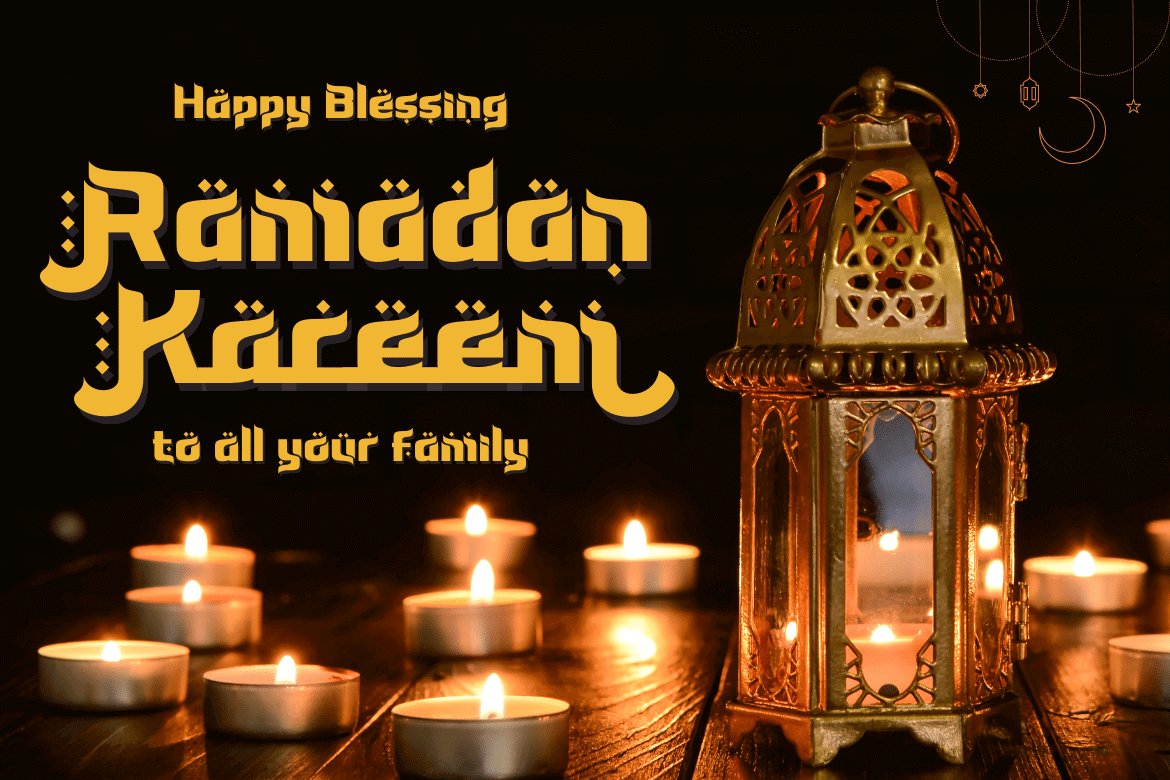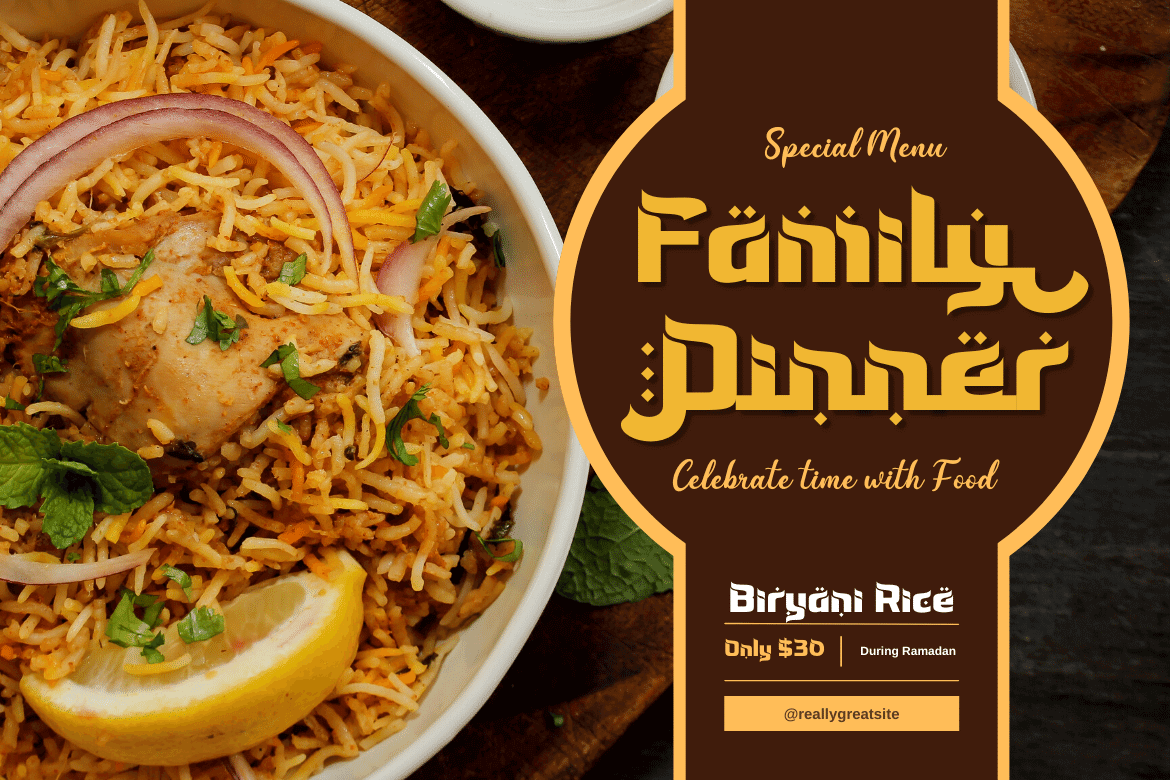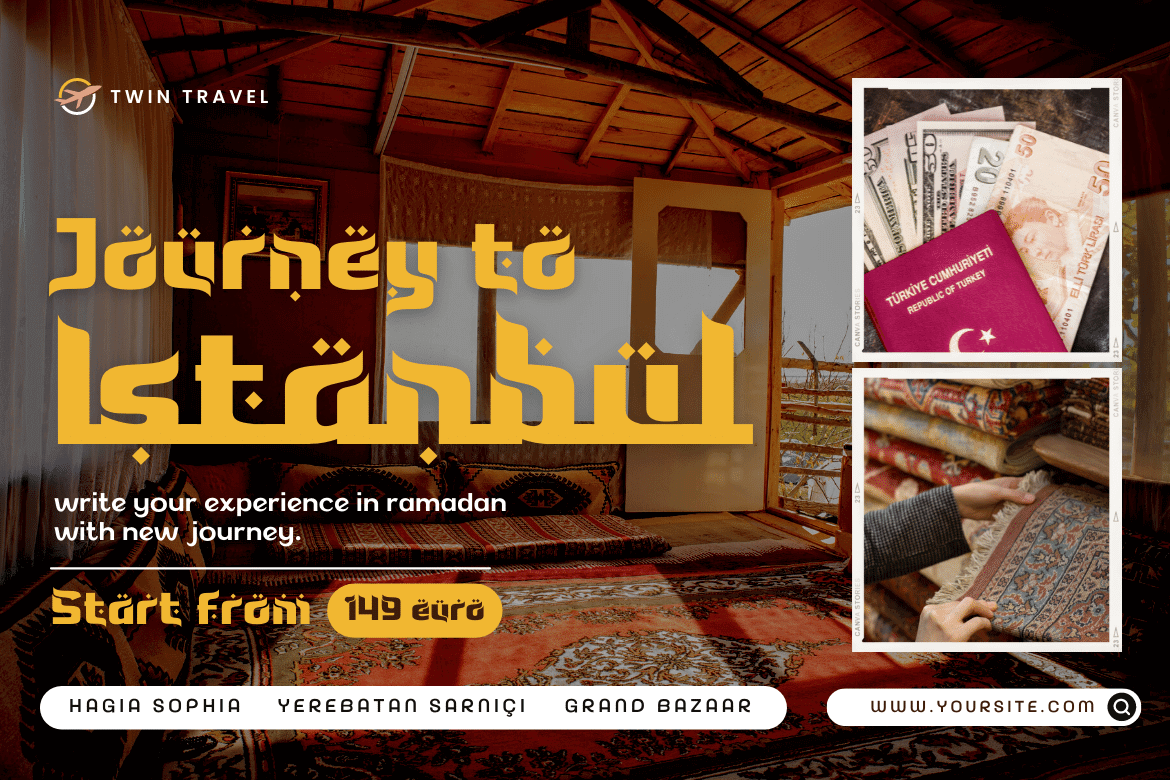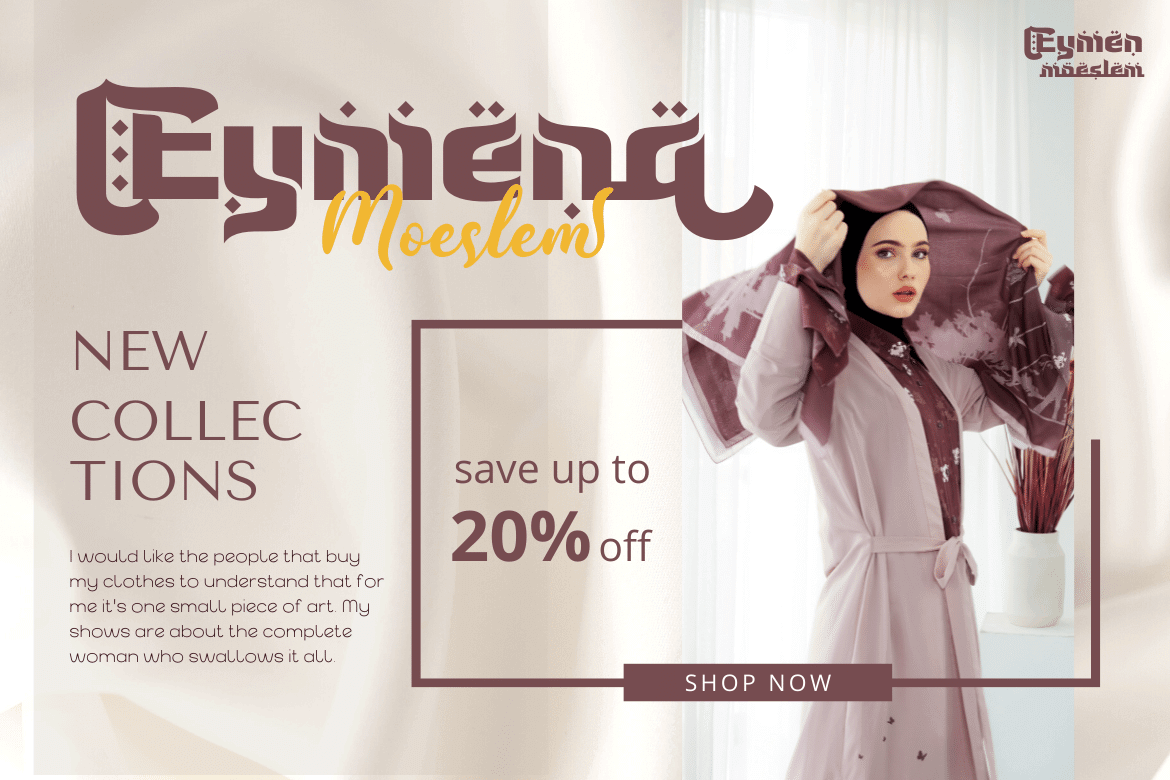
Bassun Font
Bassun Display Font
This font is brought to you by our expert designers. The letters have a beautiful aspect thanks to using a digital flat pen and a gothic font approach. This typeface can be used in a wide range of Middle Eastern-themed projects, including advertising, packaging, posters, invitations, and any other graphic design.